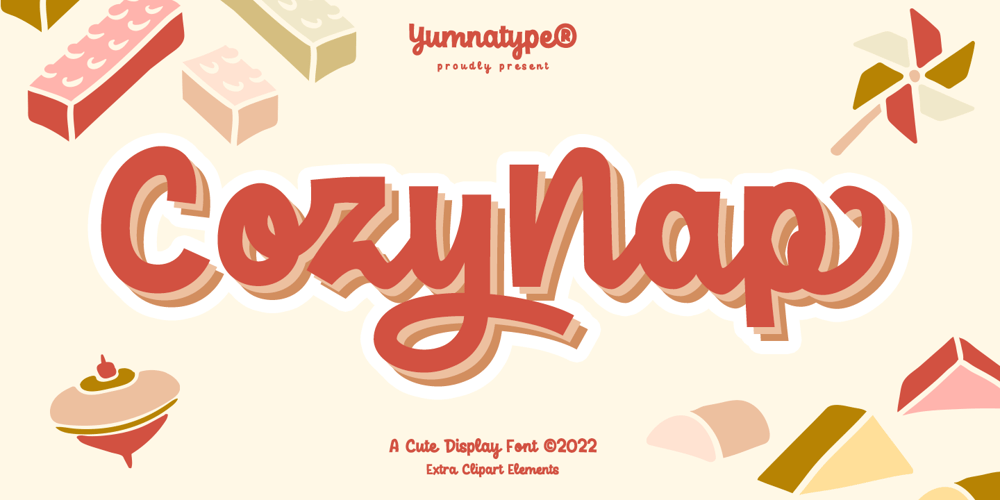
Cozy Nap
Cozy Nap font
Cozy Nap Font Family was designed by Donis Miftahudin and published by Yumna Type. Cozy Nap contains 2 styles and family package options. Ready to get an awesome font?Cozy nap is a cute display font. The dramatic bold and heavy styles works well in header or title text. While it’s easy to read, there are also a little bit curvy characters to add cute vibes. This font becomes more special with illustrations as the extras. Features: Stylistic Sets Swashes Multilingual Supports Uppercase and lowercase PUA Encoded Numerals and Punctuation This font would looks great on your branding, logos, social media quotes, stickers, posters, wall art, merchandise, social media, and many more. Get more inspiration about how to use it by seeing the font preview.Thank you for purchasing our fonts. If you have any further questions, don’t hesitate to contact us. Happy Designing.